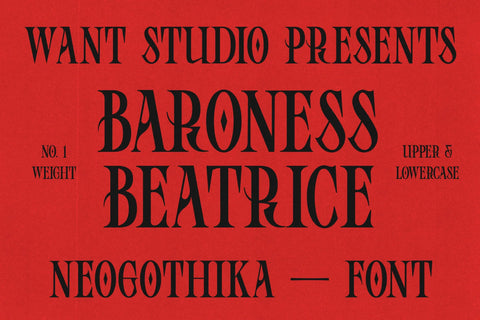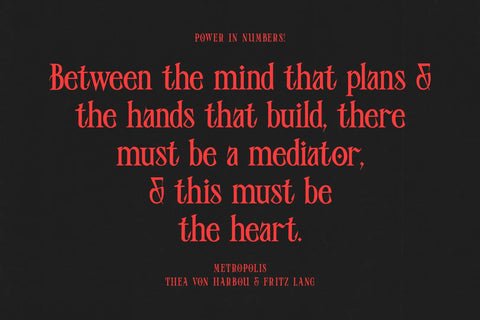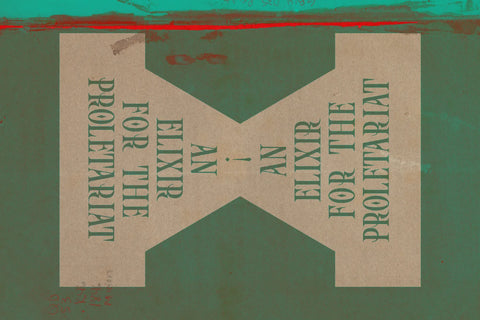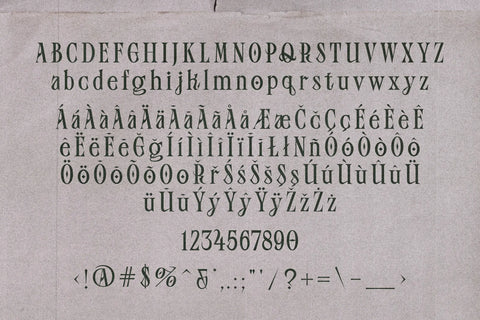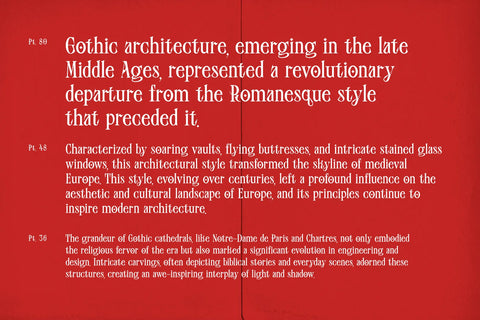
Baroness Beatrice Font
Want Studio
Baroness Beatrice Font
Contemporary Elegance Meets Blackletter Mystique
Introducing Baroness Beatrice, an exquisite font from Want Studio, designed to infuse your projects with a blend of contemporary elegance and the enigmatic allure of blackletter styles. This font is a tribute to tales of feminine strength, crafted with sharp, precise letterforms that command attention and evoke a sense of bold sophistication.
Baroness Beatrice is not merely a font; it's a versatile tool for designers looking to add a touch of historical drama with a modern twist. Perfect for branding, editorial designs, and headline pieces, this font adapts effortlessly to various design contexts, making it a must-have in your creative arsenal.
Dripping with gothic glamour, Baroness Beatrice by Want Studio is a captivating typeface that marries modern elegance with the mystique of blackletter design.
Font Features:
• Full Uppercase Set: Every letter has been meticulously designed to ensure maximum impact and readability.
• Full Lowercase Set: Complementing the uppercase, the lowercase letters offer subtle elegance, perfect for versatile applications.
• Numerals: Essential for any functional font, the numerals are just as elegantly designed as the alphabetic characters.
• Majority-Use Accents: Expand your reach and appeal with accents that cater to a variety of languages.
• Common-Use Symbols: Enhance your designs with symbols that add extra functionality and flair.
Baroness Beatrice is an ideal typeface for those who value aesthetics that stand out yet remain rooted in deep historical influences. Whether you’re designing a bold logo or crafting an elegant invitation, this font ensures your work is not just seen, but remembered.